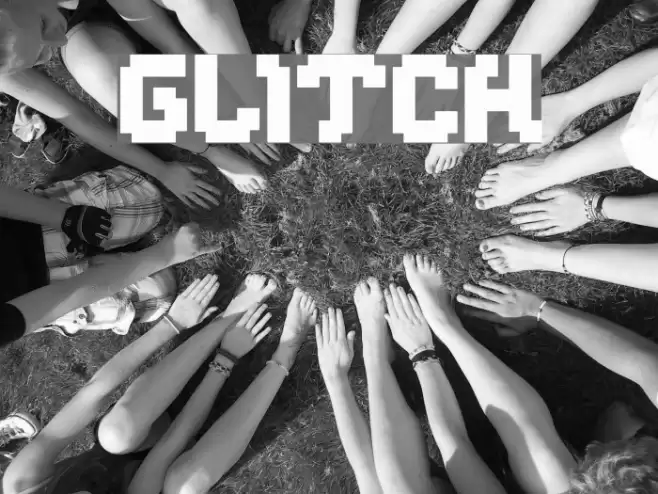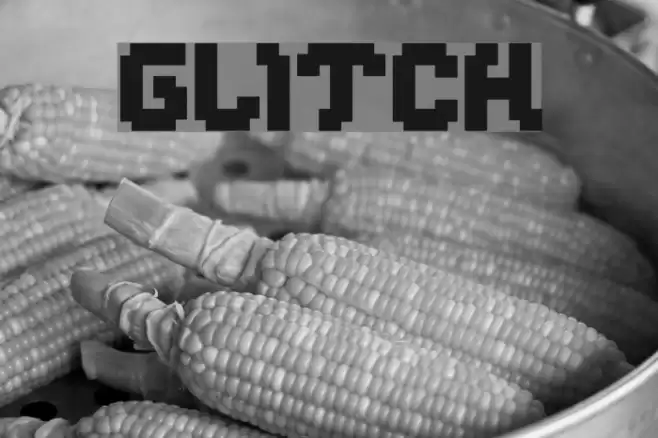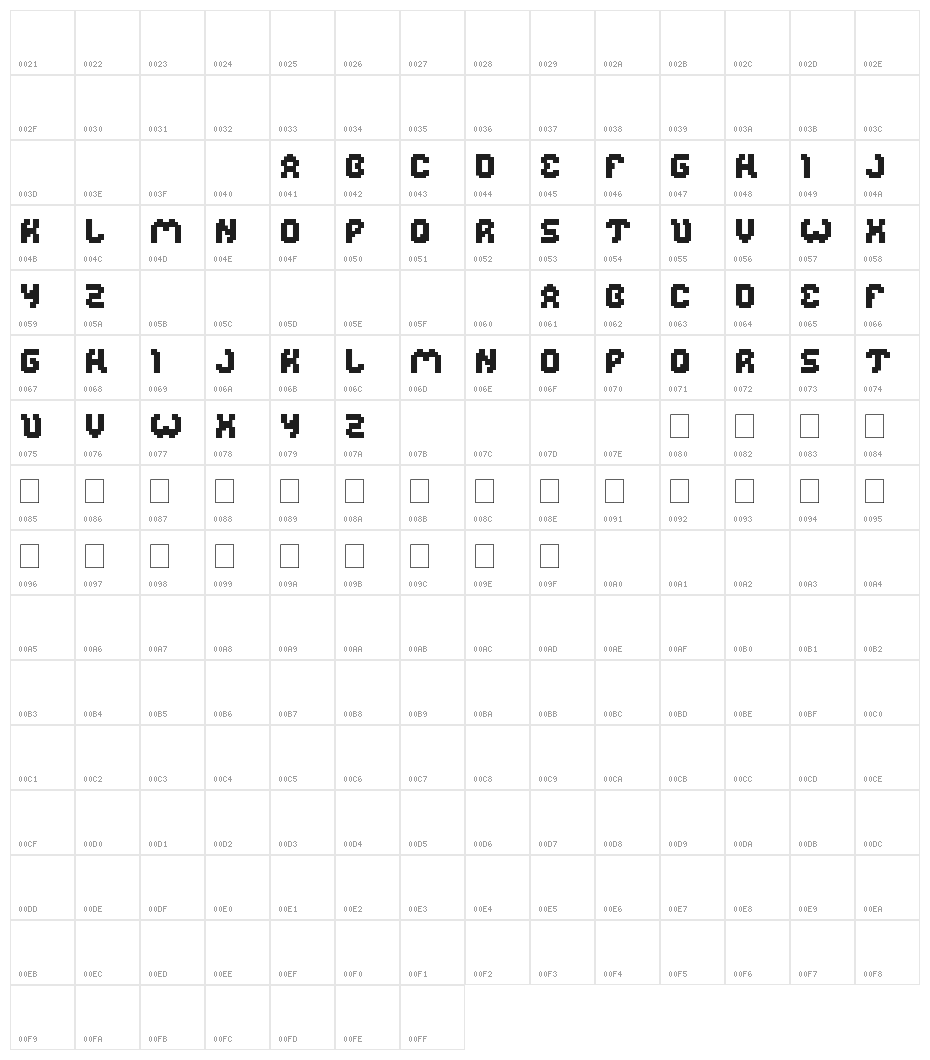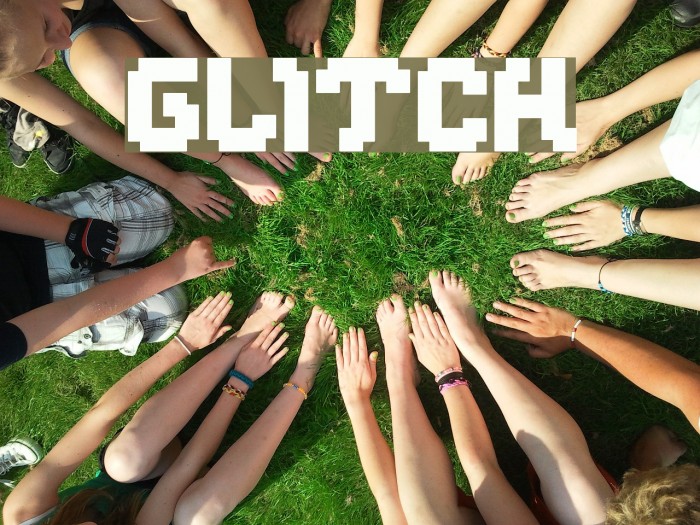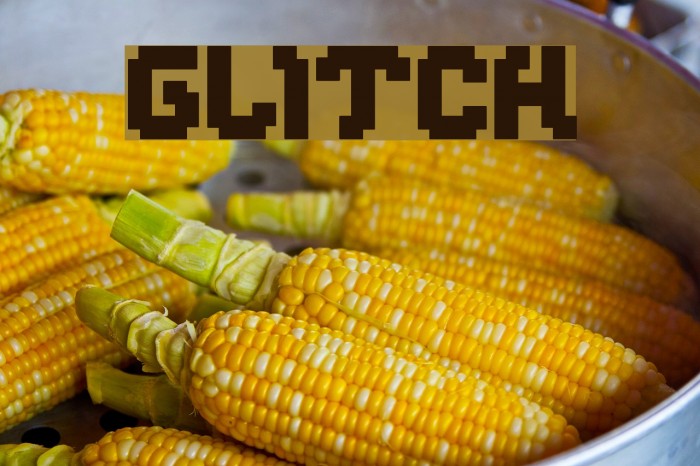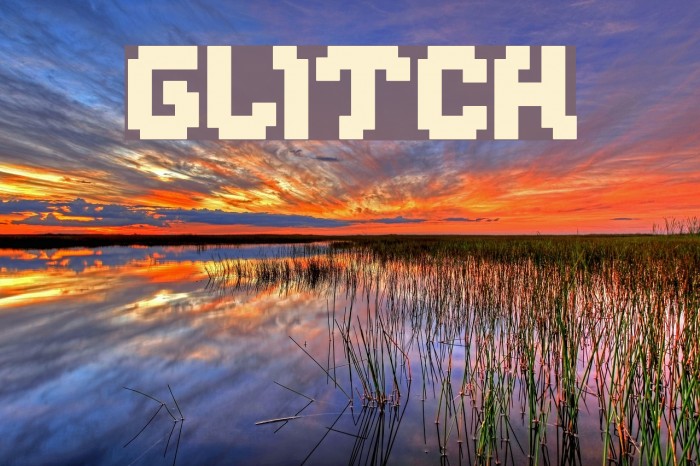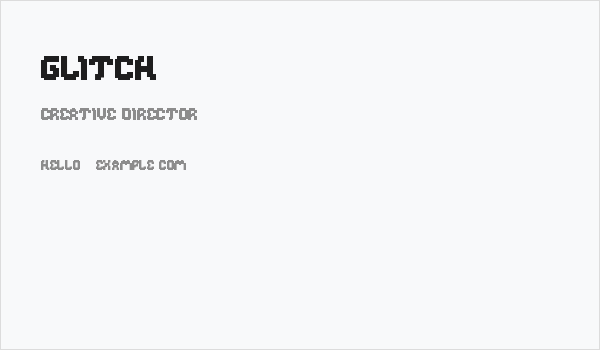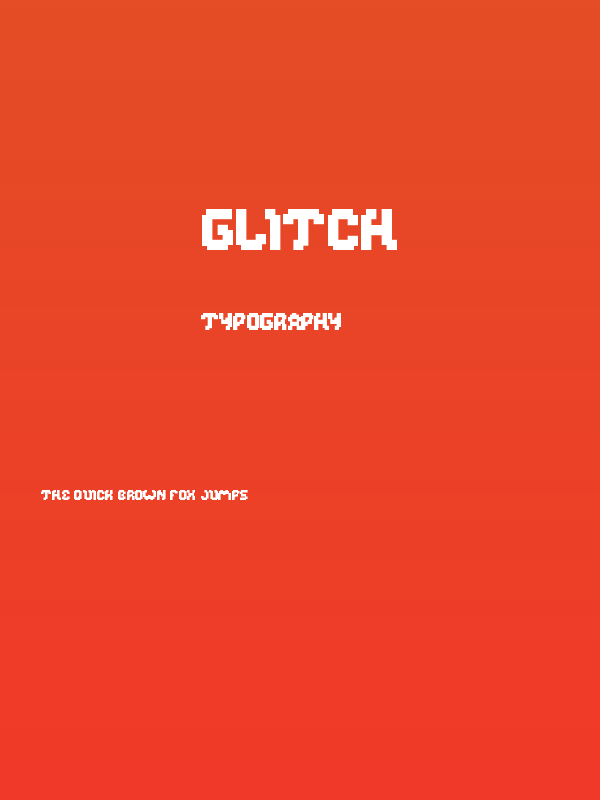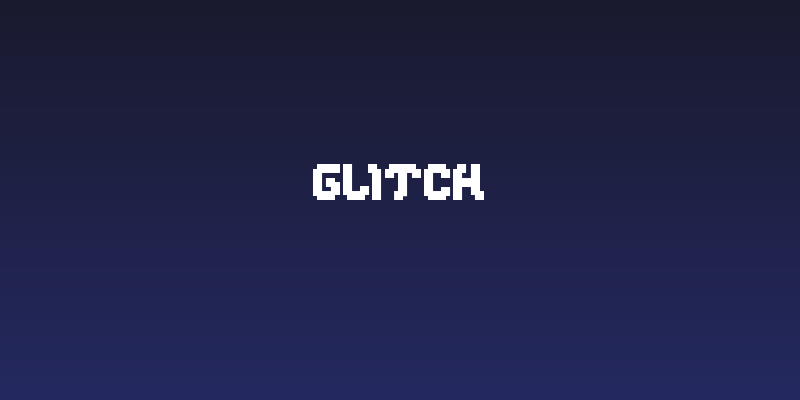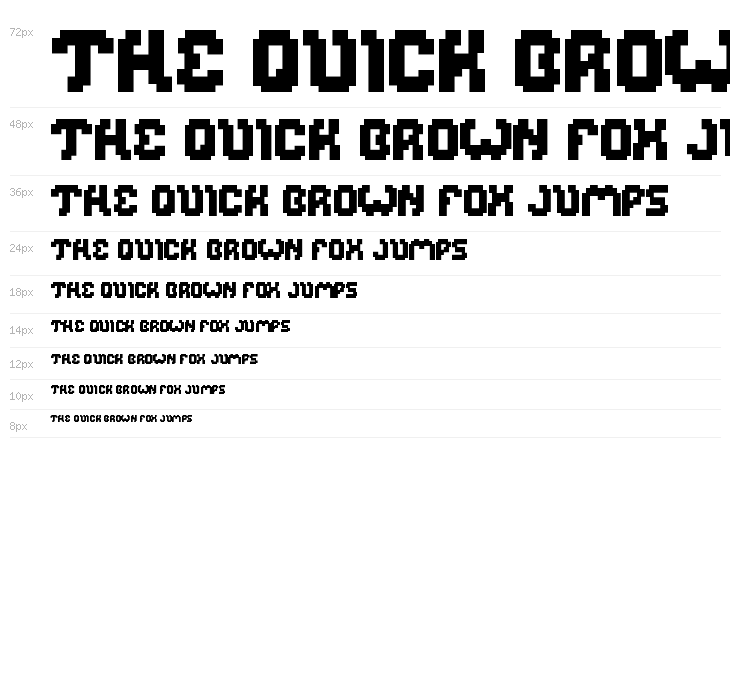
glitch Font
glitch Description
This font features a bold, pixelated design reminiscent of early digital displays and retro video games. Each character is constructed with blocky, square shapes, giving it a distinctly digital and geometric appearance. The uniformity in height and width across characters contributes to a cohesive and structured look. The font's style is both nostalgic and modern, capturing the essence of 8-bit graphics while maintaining readability. It is particularly effective in conveying a sense of technology, gaming, or digital culture. The characters are evenly spaced, ensuring clarity and legibility even at smaller sizes. This font is ideal for projects that require a retro or tech-inspired aesthetic.
A bold, pixelated font with a retro digital style from Uncategorized fonts.
- Proposed Projects: Ideal for video game graphics, tech-themed posters, digital art, and retro-inspired branding.
- Overall Style: Retro, Digital
- Use Case: Headlines, Logos, Digital Art